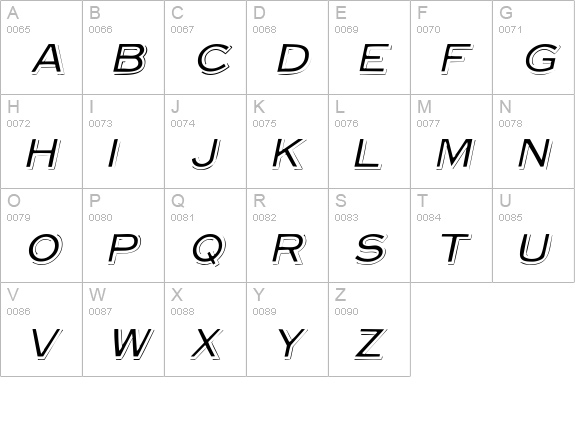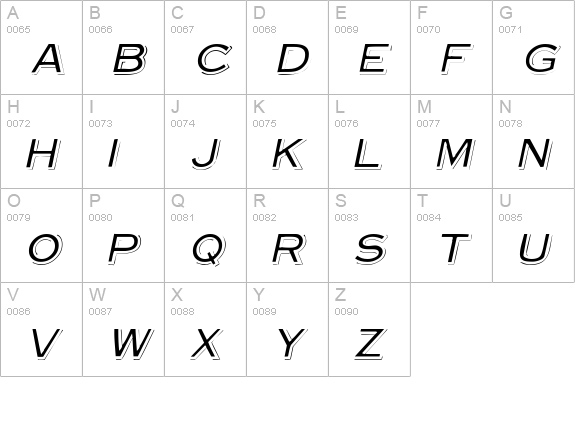
VinylCaps Italic Font Details
VinylCaps Italic is a distinctive, italic variant in the VinylCaps typeface family \xE2\x80\x94 well suited to design and typography projects.
VinylCaps Italic font is a captivating and stylish typeface that exudes elegance and sophistication. Its unique italic design adds a touch of flair and creativity to any project, making it perfect for various applications such as branding, headlines, and advertising. With its smooth curves and bold lines, VinylCaps Italic font commands attention and stands out from the crowd. Its sleek and modern appearance gives a high-end and professional look to any design, making it a versatile choice for both print and digital media. One of the most remarkable features of VinylCaps Italic font is that it is available for free download at FontsMarket.com. This means that designers, creatives, and enthusiasts can easily access this exceptional font without any cost. It offers an incredible opportunity to enhance your designs without breaking the bank. Whether you are working on a logo design, website layout, or packaging project, VinylCaps Italic font will effortlessly elevate your work to the next level. Its legibility and readability make it a great choice for conveying messages effectively, while its unique style adds a touch of sophistication and creativity. In conclusion, VinylCaps Italic font is a must-have for any designer or typographer looking to add a touch of elegance and modernity to their projects. Its free availability at FontsMarket.com ensures that everyone can enjoy the benefits of this exceptional font without any financial constraints. Download VinylCaps Italic font today and unlock a world of endless design possibilities.